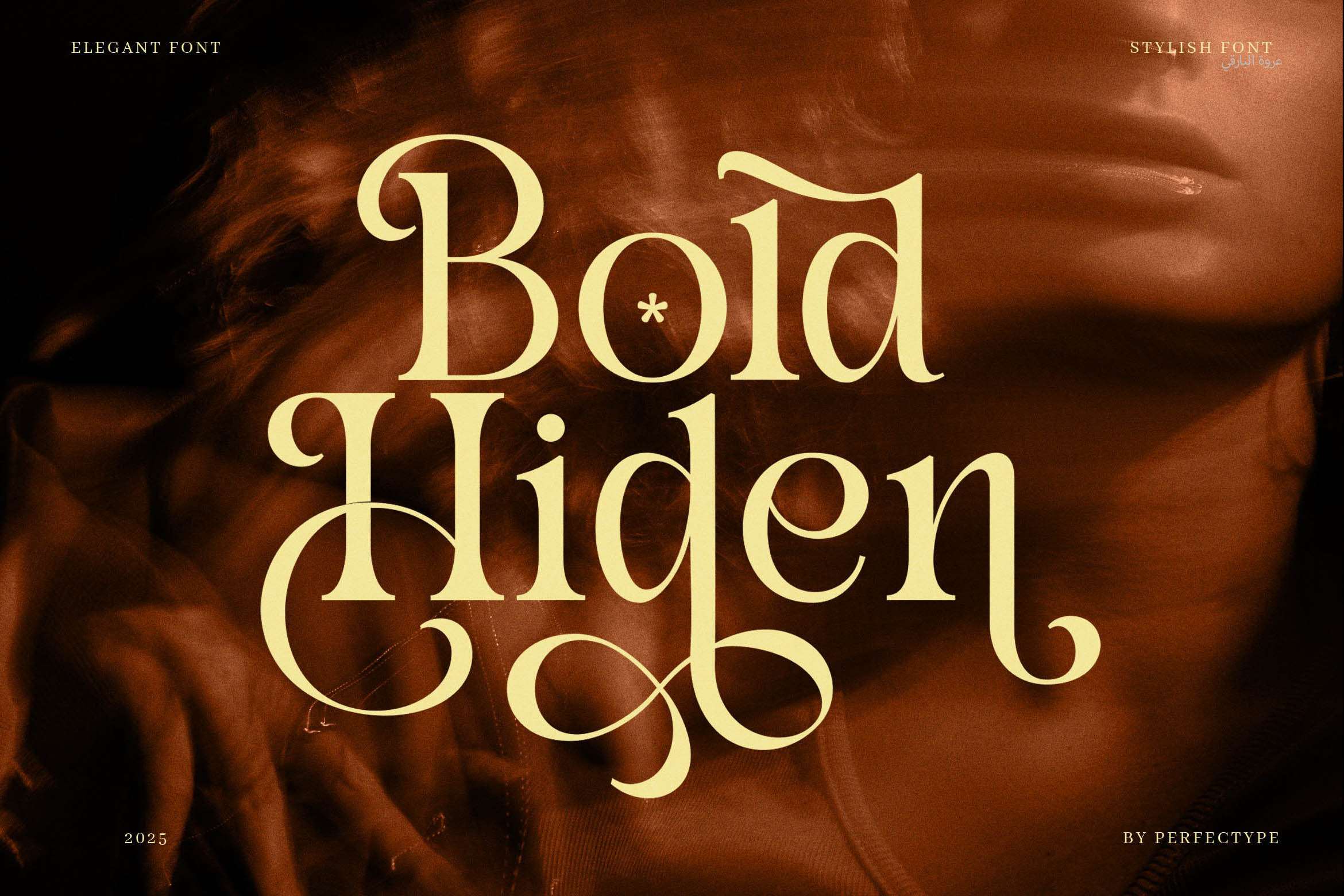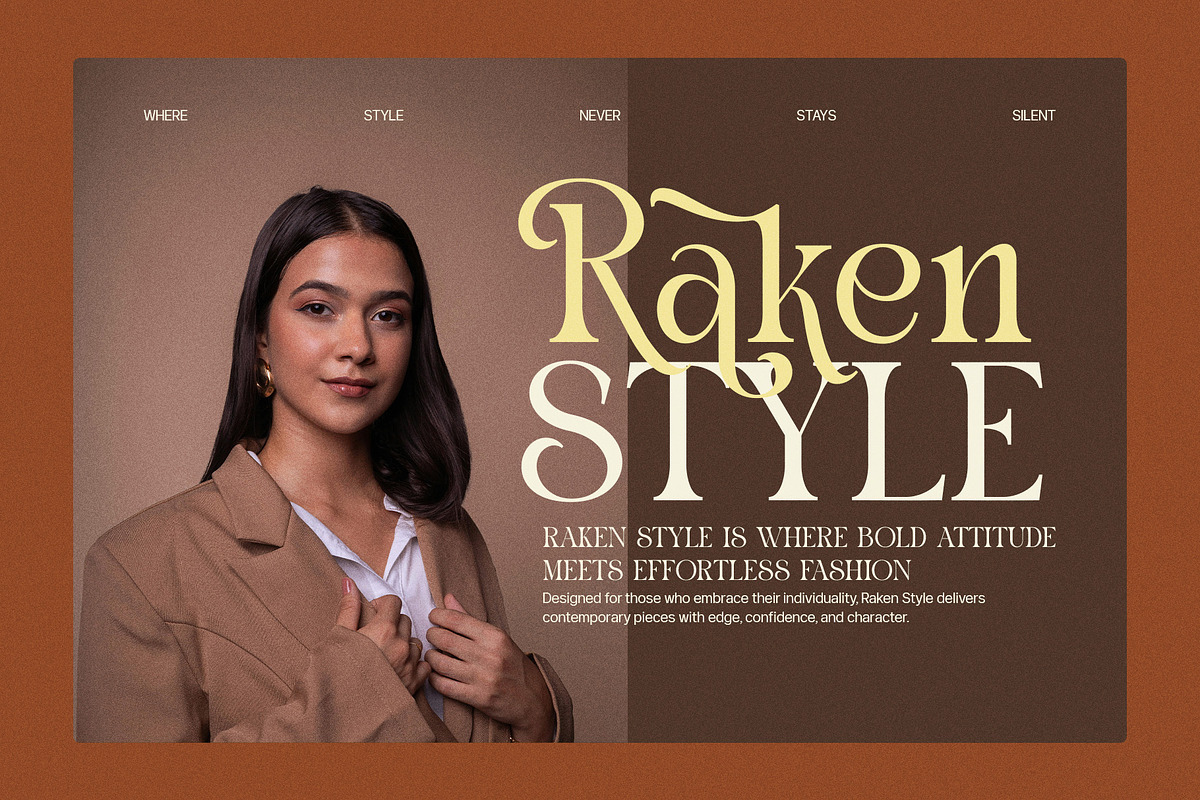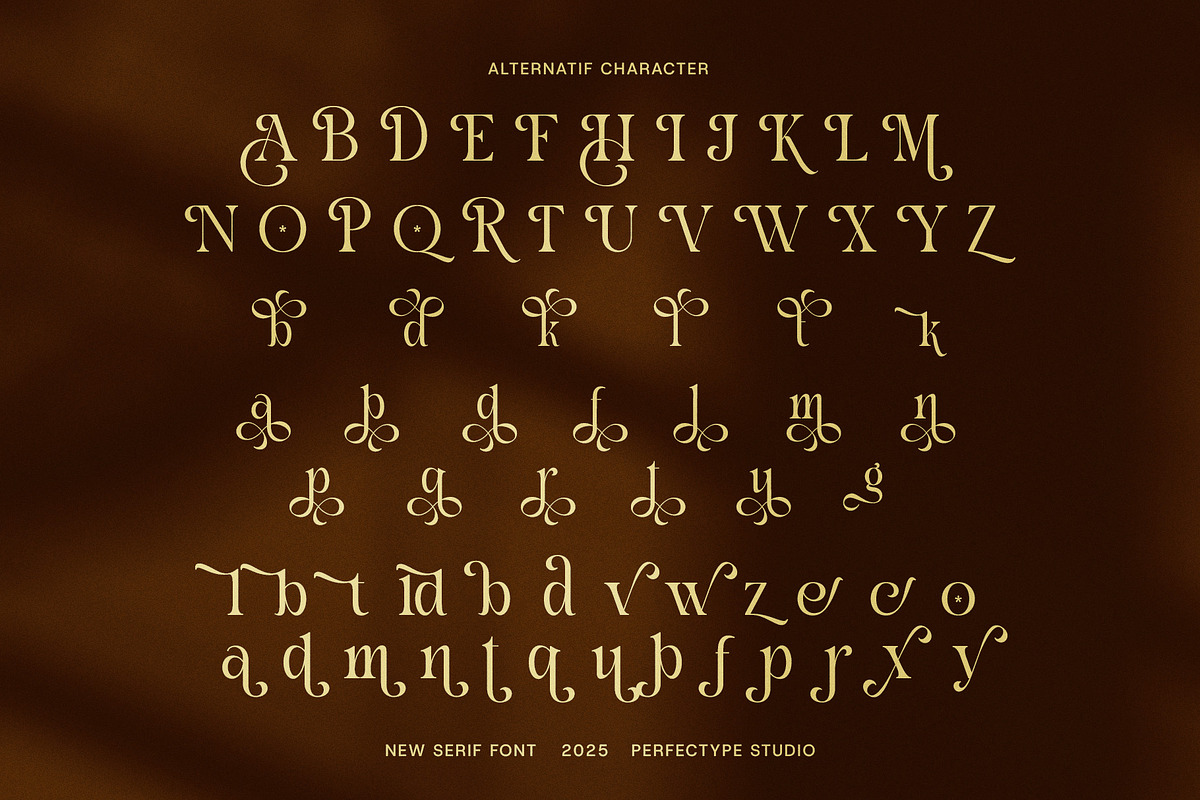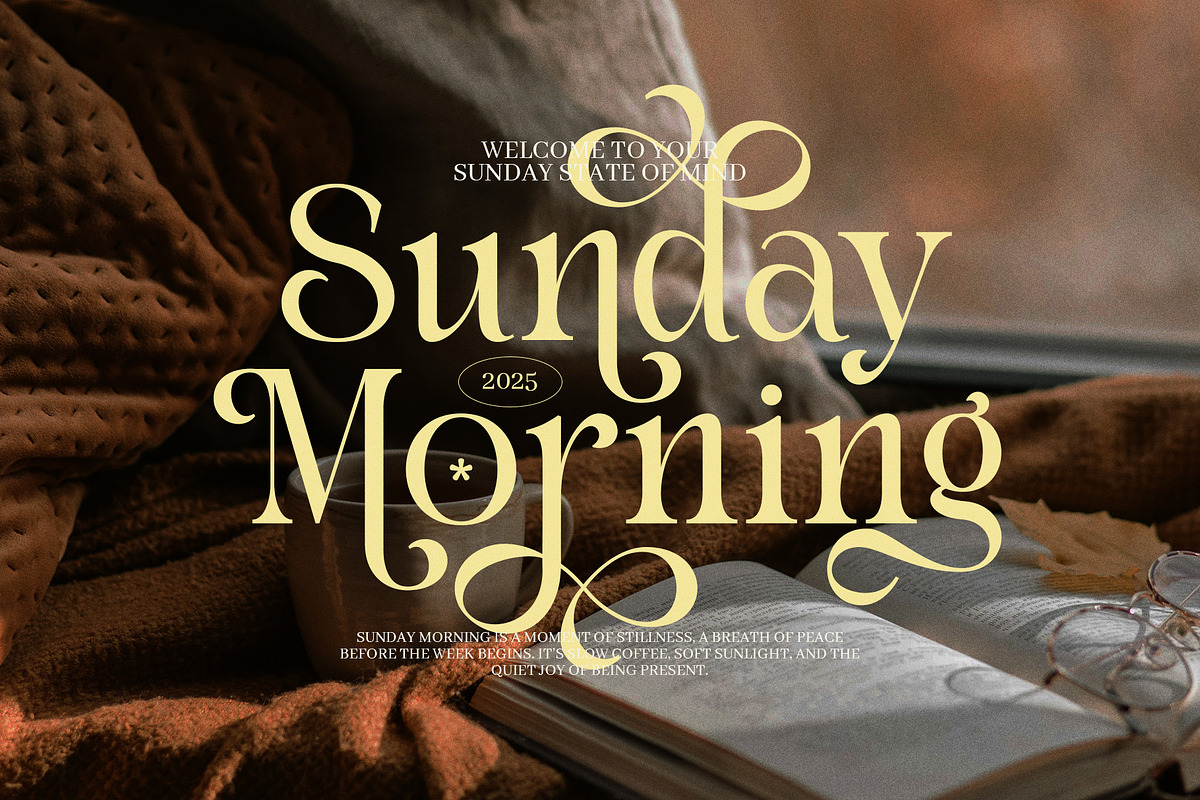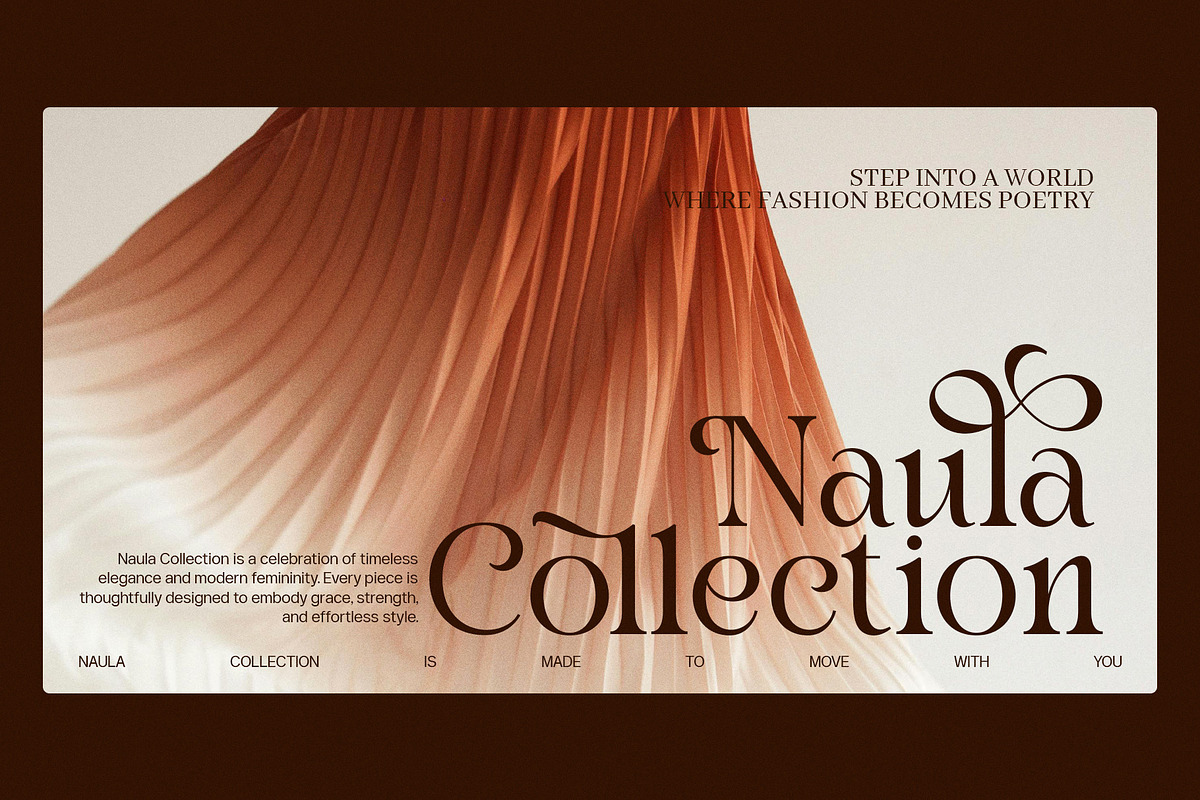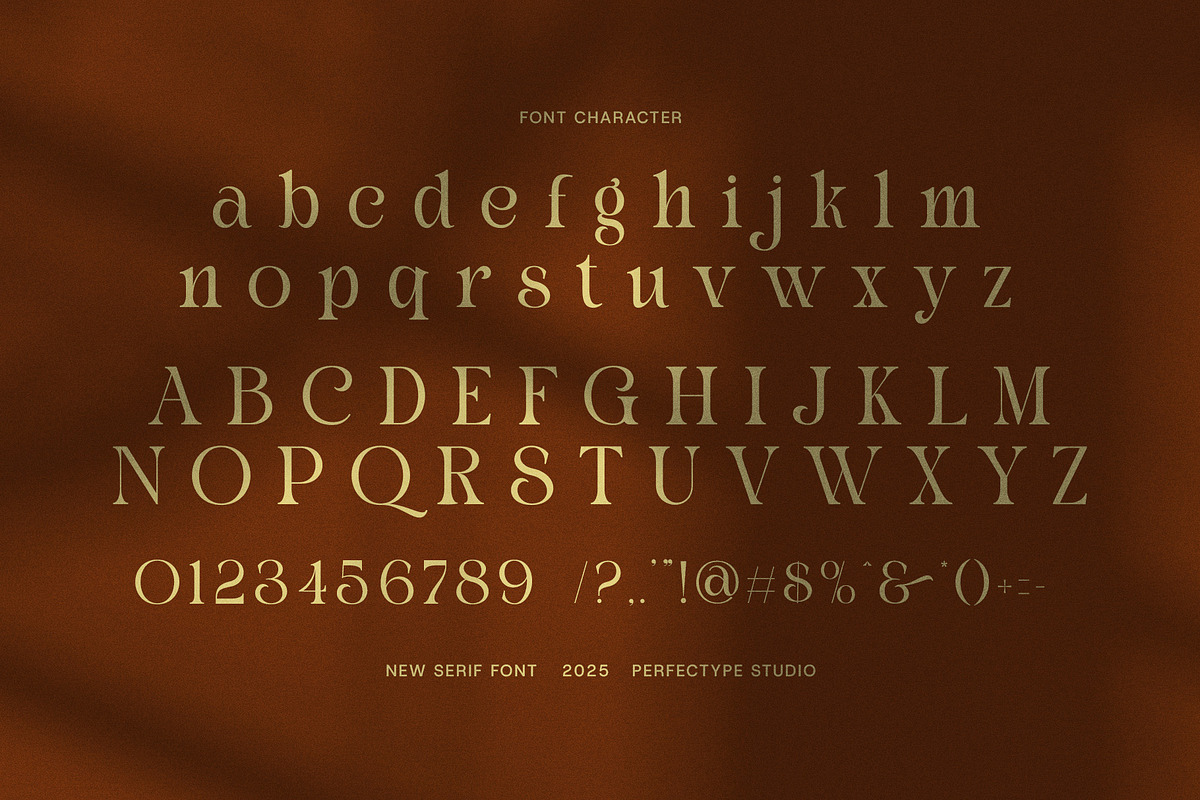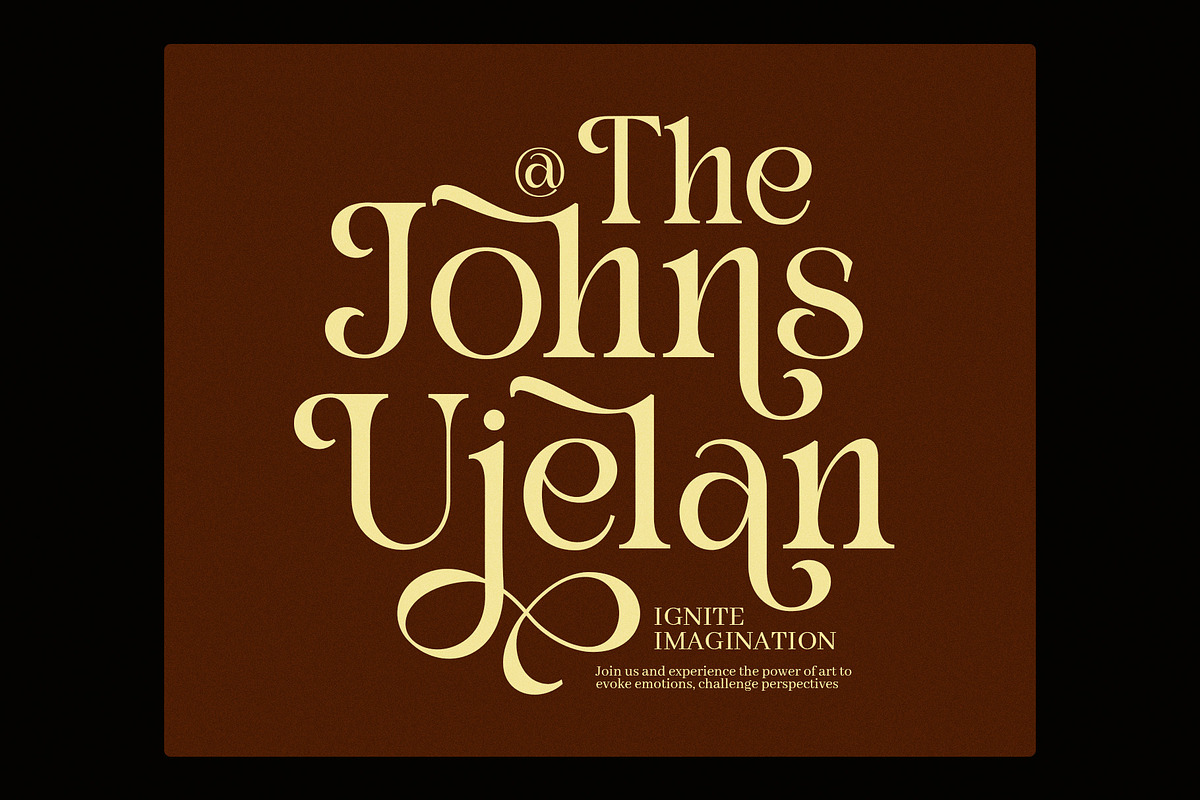
Bold Hiden Calligraphy Serif Font
Bold Hiden Calligraphy Serif Font is a bold yet graceful typeface that combines the beauty of calligraphy with the strength of a modern serif. It’s crafted to bring elegance, clarity, and personality to your creative work.
From the first glance, Bold Hiden grabs attention. It features clean lines, smooth curves, and strong contrasts, making it perfect for logos, websites, and packaging. Because each character is carefully balanced, your text will always appear neat and professional.
One of the most unique features of this font is its functional ligatures. These ligatures help create a seamless connection between letters. As a result, your designs feel more custom and refined. In fact, they add just the right touch of detail without being overwhelming.
Moreover, Bold Hiden is incredibly versatile. It fits well with many different styles, which means you can use it in both modern and classic projects. Whether you're designing for print or digital platforms, this font stays sharp and readable.
Use Bold Hiden for:
High-end logo design
Beauty and fashion branding
Elegant packaging and labels
Editorial layouts and magazines
Restaurant menus and signage
Invitations and wedding stationery
Social media templates and ads
Boutique product branding
Because of its versatility, Bold Hiden is a great choice for creatives, designers, and small businesses. It helps your brand look premium, even with minimal effort.
In addition, it pairs beautifully with simple sans-serif fonts. That means more design flexibility for you. Whether you're working on a personal project or client work, this font gives your text both beauty and boldness.
Choose Bold Hiden Calligraphy Serif Font to elevate your next project with a stylish, handcrafted look.